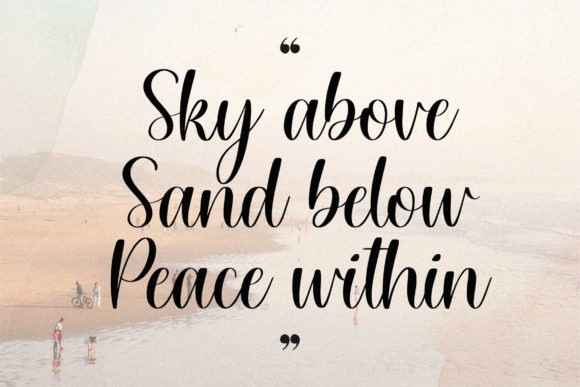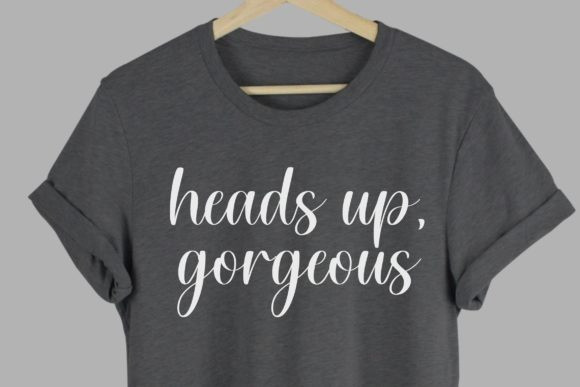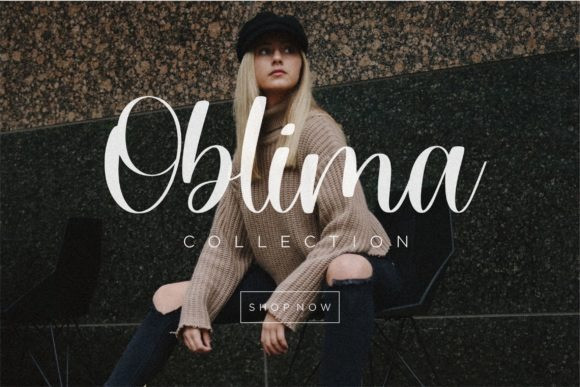
Willow Eden Script Font
Willow Eden Font is a Modern Handwritten Font.
Willow Eden is a magical script font carefully created with a touch of elegance. Whether you’re looking for fonts for Instagram or calligraphy scripts for DIY projects, this font will turn any creative idea into a true piece of art!